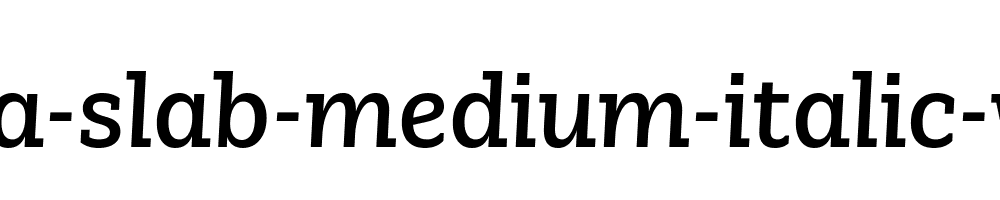
About nomada-slab-medium-italic-webfont
The font nomada-slab-medium-italic-webfont is a versatile typeface with a unique blend of expressiveness and elegance. The font’s design showcases a balance between classic serif features and a progressive appeal, making it suitable for a wide range of design projects. The font’s aperture is meticulously crafted, adding a touch of sophistication to each character. The ascenders and descenders are gracefully executed, enhancing the overall structure and readability of the font. The subtle arc in the upper case letters creates a dynamic flow, while the bilateral serifs lend a touch of tradition to the overall design. The closed counters add a sense of solidity to the characters, while the open counters introduce a modern touch. The font’s crossbars are designed with precision, adding to the font’s overall polished look. The elegant foot of the font exudes a sense of stability, while the pointed spurs add a touch of sophistication. The stem of each character is crafted with care, ensuring a harmonious balance between weight and elegance. Overall, nomada-slab-medium-italic-webfont is a font that strikes the perfect balance between classic charm and modern appeal, making it a versatile choice for a wide range of design projects.
Classified as elegant yet rugged, the font exudes a serious yet friendly vibe, making it suitable for a variety of design applications. Its technical yet organic design makes it ideal for projects that require a balance between precision and creativity. The font’s progressive yet classic aesthetic appeals to a wide audience, offering a familiar yet daring twist to traditional typography. With a discreet yet loud presence, the font can adapt to various design styles, from cold and sleek to warm and inviting. Overall, nomada-slab-medium-italic-webfont is a font that seamlessly blends tradition with innovation, making it a standout choice for designers looking to make a statement with their typography.